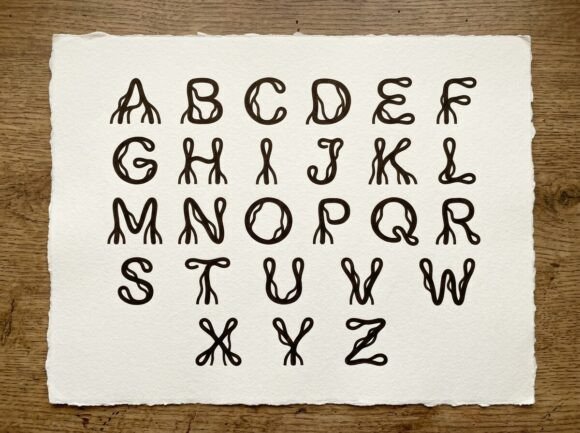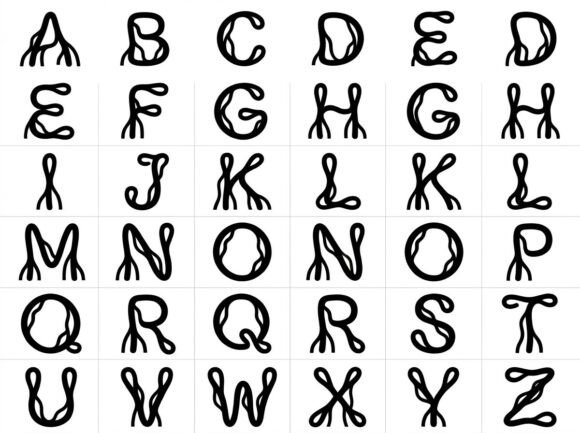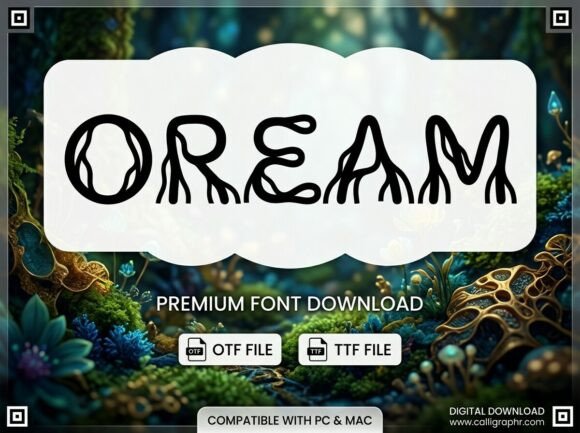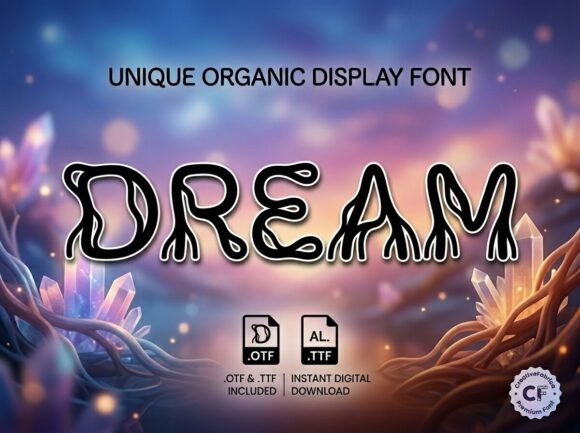
Unlocking the Magic of Dream Font: A Journey into Ethereal Visual Storytelling
Imagine stepping into a realm where fantasy and reality blend seamlessly, where the boundaries of imagination are pushed to their limits, and creativity knows no bounds. Welcome to the world of Dream Font, a unique organic display font designed to transport your visual storytelling to new heights. With its fluid, vine-like outlines and intricate internal structures, Dream Font is the perfect choice for designers and crafters looking to add a touch of magic to their projects.
The Inspiration Behind Dream Font
Dream Font is more than just a typeface; it’s an experience. Its creator was inspired by the natural world, infusing each character with a sense of organic growth and movement. The result is a font that feels both handcrafted and otherworldly, perfect for projects that require a touch of whimsy and wonder. Whether you’re designing a fantasy book cover, a mystical brand identity, or an ethereal event poster, Dream Font is sure to captivate your audience.
Key Features of Dream Font
- Fluid, Vine-Like Outlines: Each character in Dream Font features smooth, flowing lines that evoke the natural world.
- Intricate Internal Structures: The internal “root” structures of each character add depth and visual interest, creating a sense of mesmerizing movement.
- Balanced Silhouettes: The airy silhouettes and rhythmic internal linework of Dream Font create a sense of harmony and balance.
Perfect for Fantasy and Creative Projects
Dream Font is designed to bring a sense of imagination and wonder to your projects. Its unique features make it perfect for:
- Fantasy Book Titles: Add a touch of magic to your book covers with Dream Font’s enchanting, ethereal feel.
- Mystical Branding: Create a brand identity that stands out with Dream Font’s distinctive, handcrafted charm.
- Ethereal Event Posters: Transport your audience to another world with Dream Font’s dreamy, captivating aesthetic.
- High-Concept Digital Art: Take your digital art to new heights with Dream Font’s soaring imaginative power.
Beyond Books and Branding: Exploring New Applications for Dream Font
While Dream Font is perfect for fantasy and creative projects, its versatility extends far beyond traditional applications. Consider using Dream Font for:
- Boutique Apothecary Branding: Add a touch of artisanal charm to your product labels and packaging.
- Creative Portfolio Headers: Stand out from the crowd with a bold, eye-catching header that showcases your unique style.
- Wedding and Event Invitations: Create unforgettable invitations with Dream Font’s whimsical, romantic feel.
Tips for Getting the Most Out of Dream Font
To unlock the full potential of Dream Font, try the following:
- Experiment with Color: Dream Font looks stunning in a range of colors, from rich jewel tones to soft pastels.
- Play with Texture: Add depth and interest to your designs with texture overlays or subtle gradient effects.
- Mix and Match: Combine Dream Font with other fonts or design elements to create a unique, eye-catching look.
Dream Font is more than just a typeface; it’s a gateway to a world of limitless imagination and creativity. With its fluid outlines, intricate internal structures, and balanced silhouettes, this unique font is perfect for designers and crafters looking to add a touch of magic to their projects. Whether you’re designing a fantasy book cover, a mystical brand identity, or an ethereal event poster, Dream Font is sure to transport your audience to a world of wonder and enchantment.